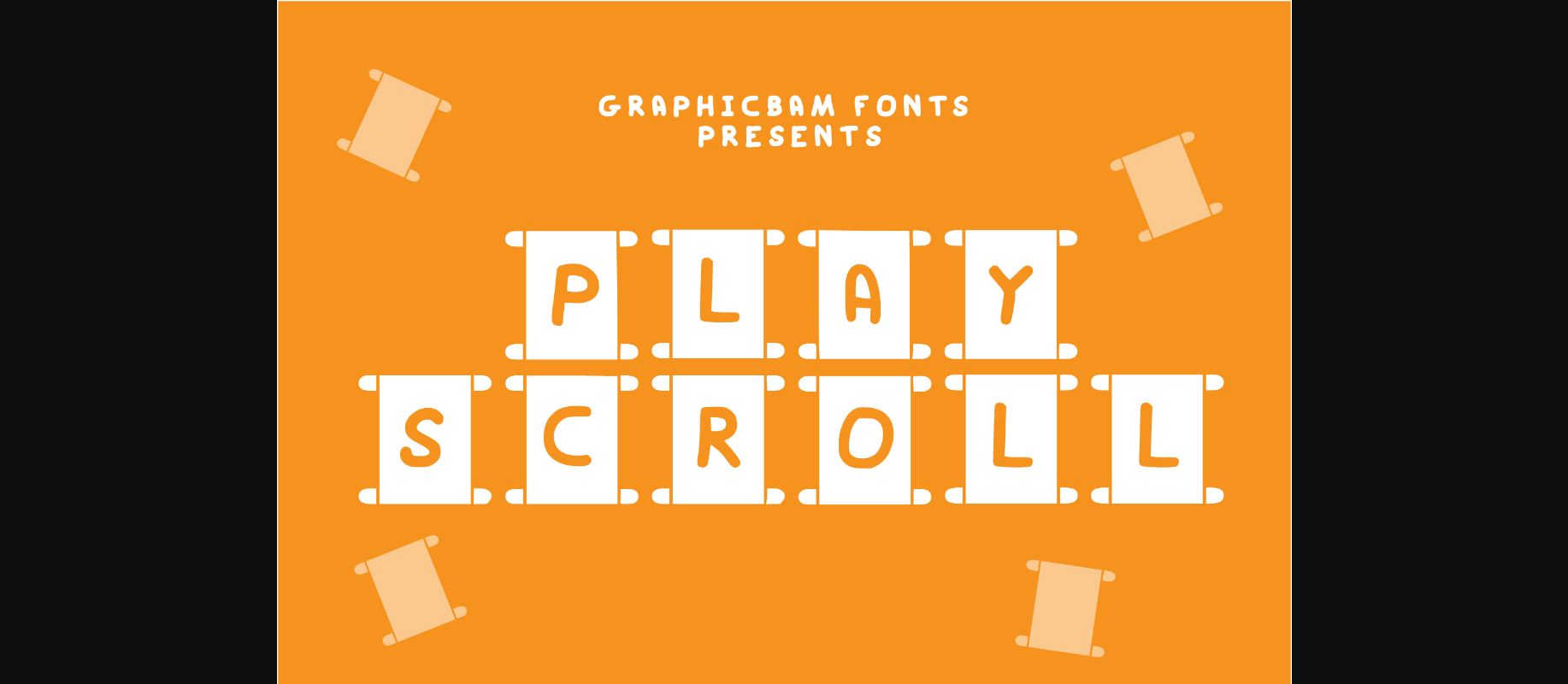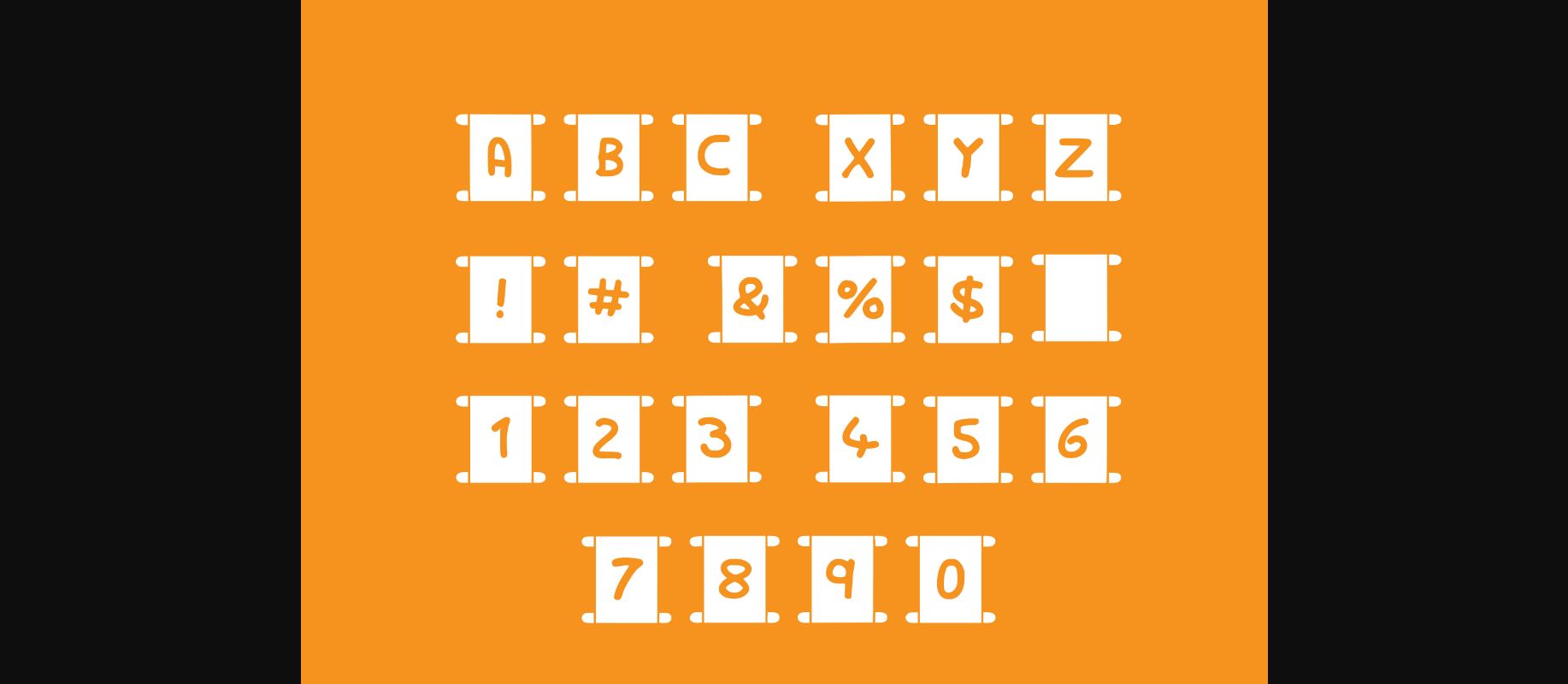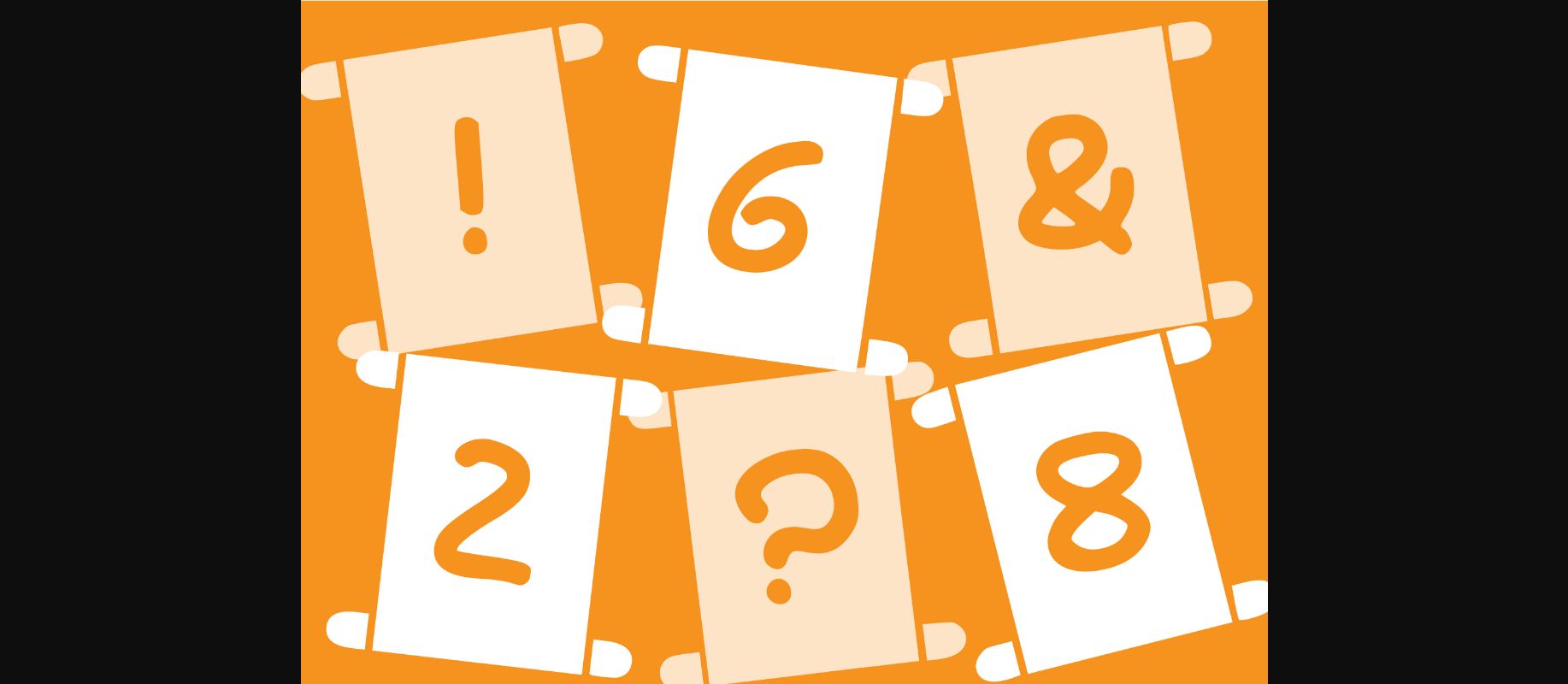
HomeDecorative FontsPlay Scroll Font Decorative Fonts Play Scroll Font FacebookXPinterestWhatsApp 1 of 5 ... Play Scroll Font Poster 2... Play Scroll Font Poster 3... Play Scroll Font Poster 4... Play Scroll Font Poster 5... About Play Scroll Font Play Scroll is an incredibly cool and interestingly designed decorative font. Whether you’re using it for crafting, digital designing, presentations or greeting cards making, it’s perfect! DOWNLOAD NOW People also explored Loveamour Font Birthday Gift Font Starina Font Soundtrack Font Trifle Font Jettiares Font Bastia Salita Font Judge Font Sweet Sour Lollipops Font 286 0 TagsPlay Scroll Font Previous articlePlay Printer FontNext articlePlay Ticket Font LEAVE A REPLY Cancel reply Comment: Please enter your comment! Name:* Please enter your name here Email:* You have entered an incorrect email address! Please enter your email address here Website: Save my name, email, and website in this browser for the next time I comment. Personal Use Free Lemon Milk Font Personal Use Free Read more about this font Bukhari Script Personal Use Free Read more about this font Alphakind Personal Use Free Read more about this font Engine Personal Use Free Read more about this font BLOG Free Fonts Risk: Why Free Fonts Can Be Dangerous for Designers Free Fonts Risk: Why Free Fonts Can Be Dangerous for Designers Using free fonts is a common practice in web and graphic design. However, the... Best Fonts for YouTube Videos: Make Your Thumbnails Stand Out Top 10 Handwritten Fonts That Elevate Your Designs Free vs Paid Fonts: Why Investing in Premium Fonts Is Worth It